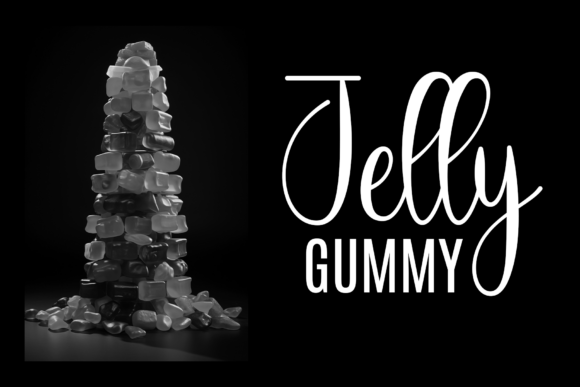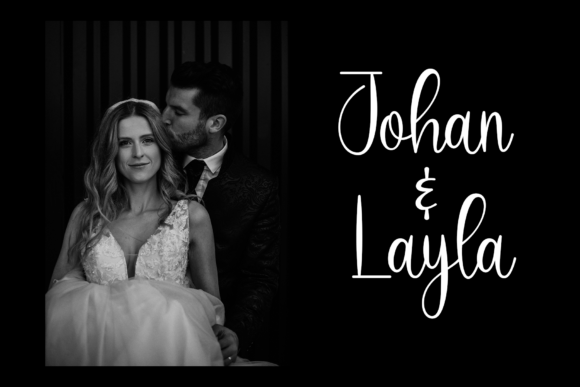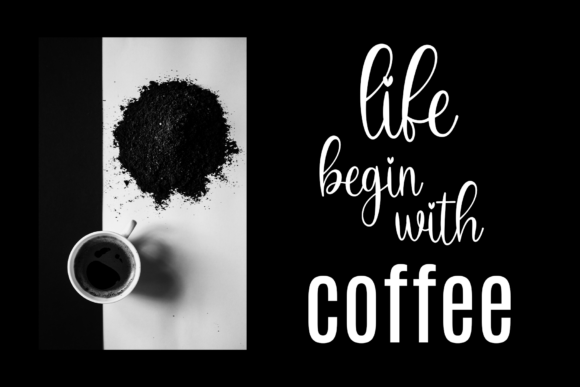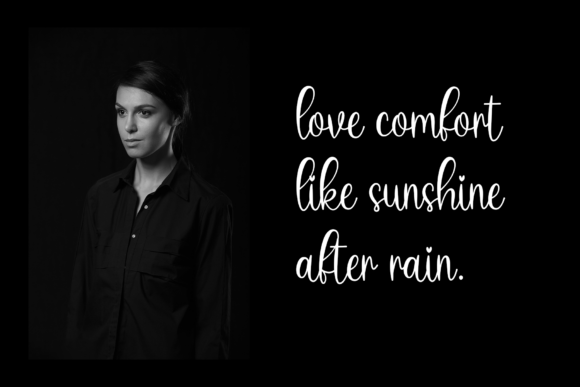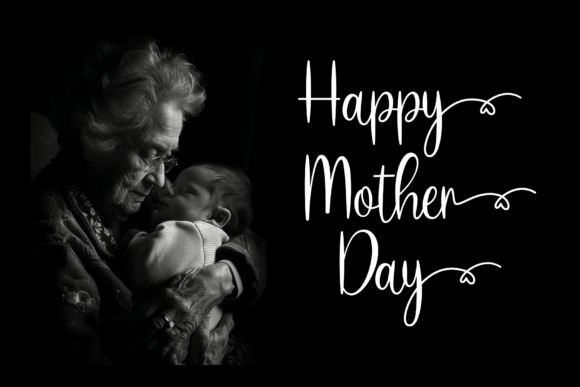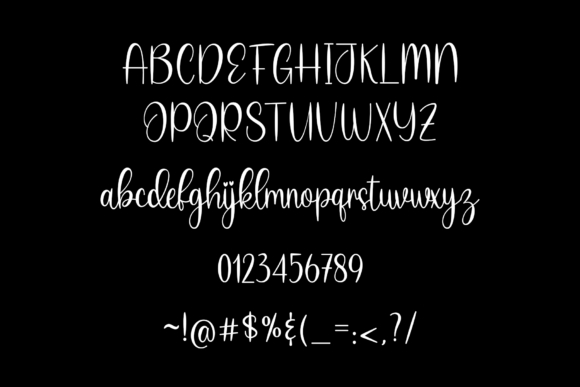
Introduction to Lala Font
Have you ever stared at a blank page, struggling to find the perfect font to bring your creative vision to life? I know I have. It’s that moment when you’re working on a design project, and you just can’t seem to find the right words to match your unique style. That’s when I discovered Lala Font, and it changed everything.
Lala Font is more than just a font – it’s a design resource that exudes warmth and friendliness, making it perfect for invitations, packaging, and social media graphics. Its smooth, flowing strokes and playful curves bring a sense of whimsy to any creative project, making it a high-quality addition to any designer’s toolkit.
What makes Lala Font truly valuable is its versatility and ease of use. Whether you’re looking for a free download or need a font with a transparent background, Lala Font has got you covered. In this article, we’ll explore the charm of Lala Font and how it can help you spread joy and delight in your designs.
Key Features of Lala Font
- High-quality, unique font design suitable for creative projects
- Transparent background, making it ideal for use on images with complex backgrounds
- Design resource perfect for graphic designers, digital artists, and writers
- Supports a wide range of languages, including Latin, Cyrillic, and Greek scripts
- Comes in two font weights: Regular and Bold, with corresponding italic styles
Honest Review: Lala Font
I recently had the chance to play around with Lala Font, and I’m excited to share my thoughts on this design resource. As a designer, I’m always on the lookout for high-quality fonts to elevate my creative projects.
- Great for creative projects: Lala Font is perfect for any project that requires a playful, modern touch.
- High-quality design: The font is well-designed and has a professional feel to it.
One thing to keep in mind is that Lala Font may not be suitable for all types of projects ⚠️ **Limited versatility**: While it’s perfect for creative projects, it may not be the best choice for more formal or traditional designs.
Overall, I’m impressed with Lala Font. It’s a great addition to any designer’s toolkit, and I’ll definitely be using it for my future projects.
Lala Font